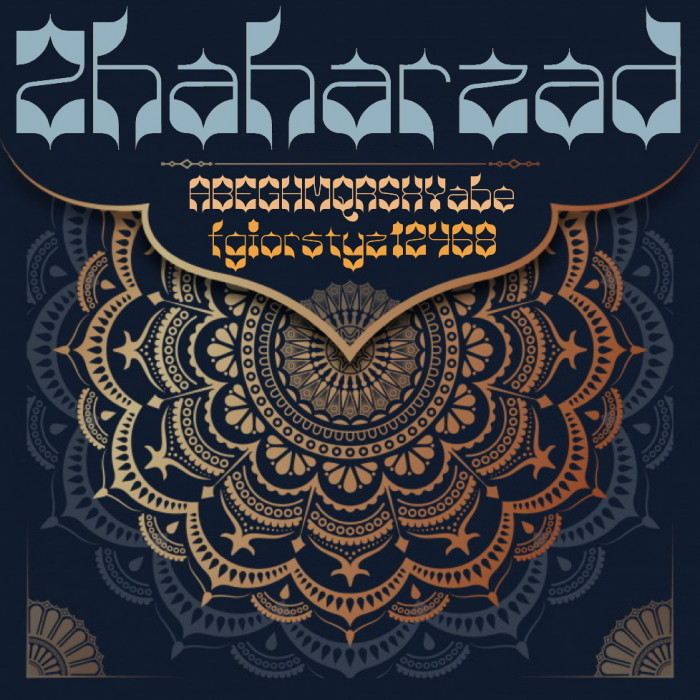
wow, this is beautiful, the lower half of the letters feel reminiscent of petals or leaves
Wow, elmo, wow, this reminds me very much of my visit to the Alhambra with its Moorish-influenced architecture. (Capitals, window arches, floor decorations and marquetry work).
It is not so easy to read, but that's not the point. It is a very fine and impressive approach.
I like it very much: the nice change of line width and curves.
Beautiful work, definitely has a 1001 nights feel to it.
@swashbuckler: The petal or leaves look was not intentional, but it works very well with the overall sense of the font and enriches it. Thank you very much.
@dear beate: You've perfectly captured the meaning of this font that, without openly showing Arabic or Moorish motifs, I've tried to transfer you to those dreamy and magic worlds that I remember when I heard those exotic names (Arabia... Samarkand... Bombay... Smyrna...) in my childhood. And with a modern point of view on all this. Thanks a miiiillion for your continuous support and your ever kindly words, Maestra. ?